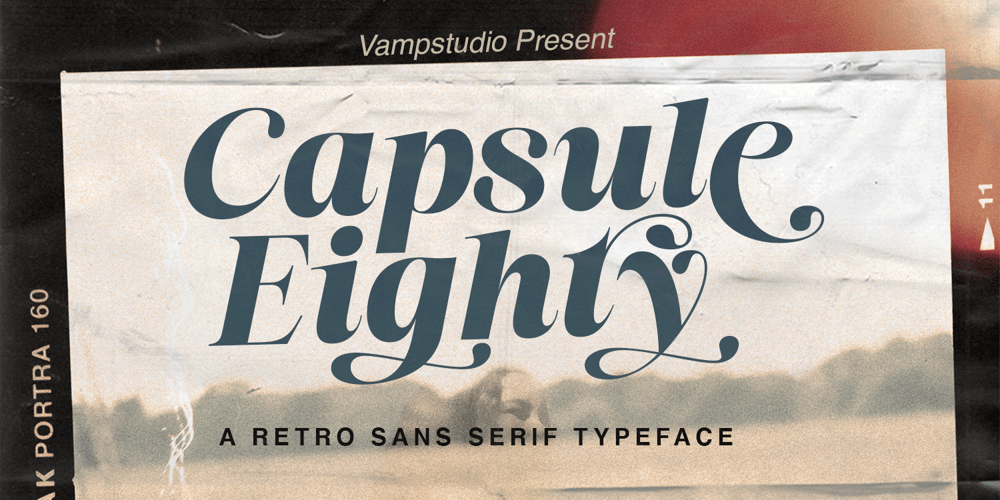
Capsule Eighty
Capsule Eighty font
Capsule Eighty Font Family was designed by Irfan syah and published by Vampstudio. Capsule Eighty contains 2 styles and family package options. Step into the nostalgic charm of the past with our latest Capsule Eighty font, inspired by iconic vintage styles. Infuse your designs with a touch of yesteryear’s charisma and retro vibes. Perfect for adding a playful and timeless aesthetic to your projects. Explore the essence of retro design and let this font transport your audience to an era filled with character and personality. Embrace the nostalgia and creativity of retro styling – download now and embark on a journey through the stylish and distinctive elements of the past.